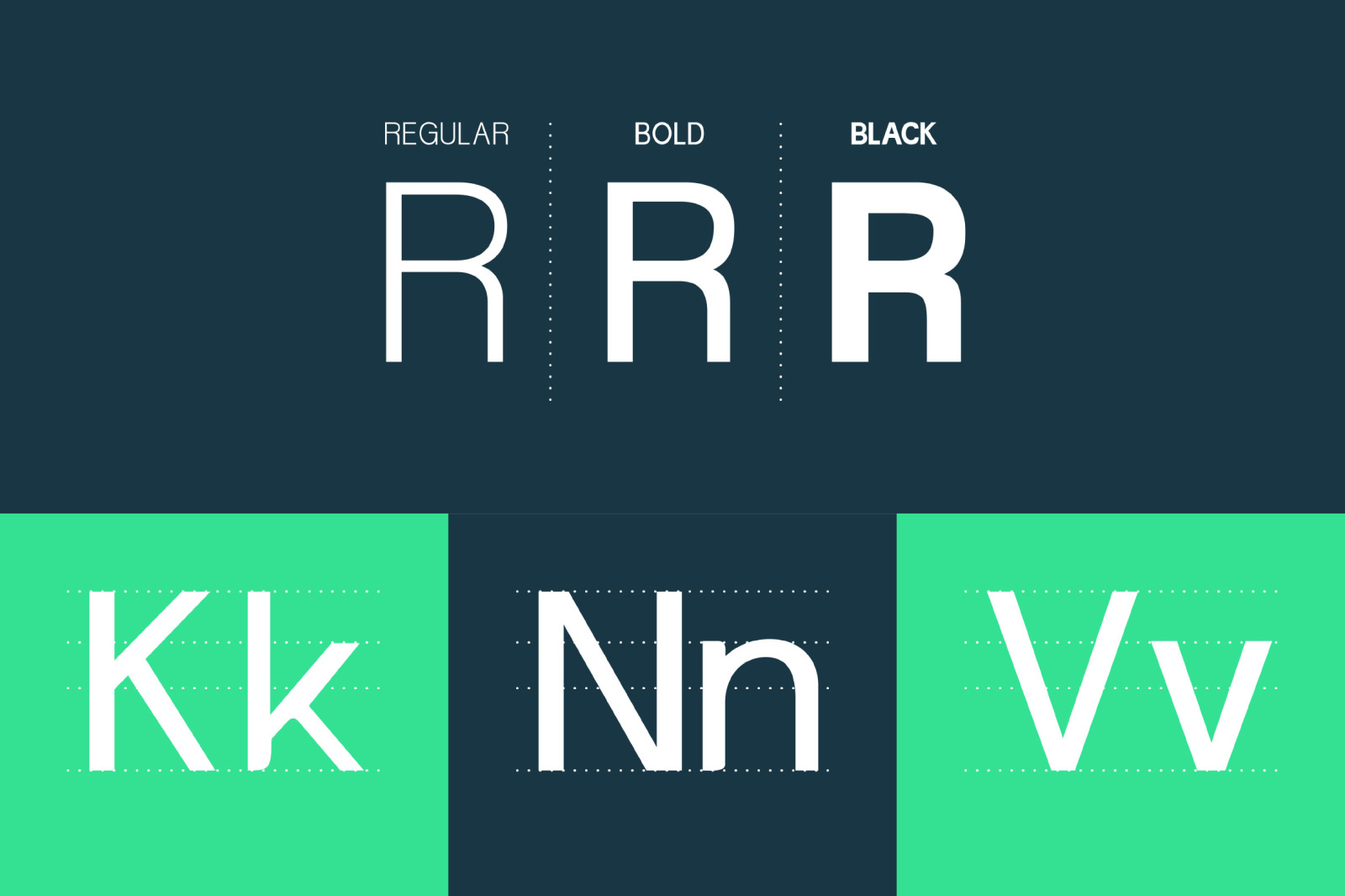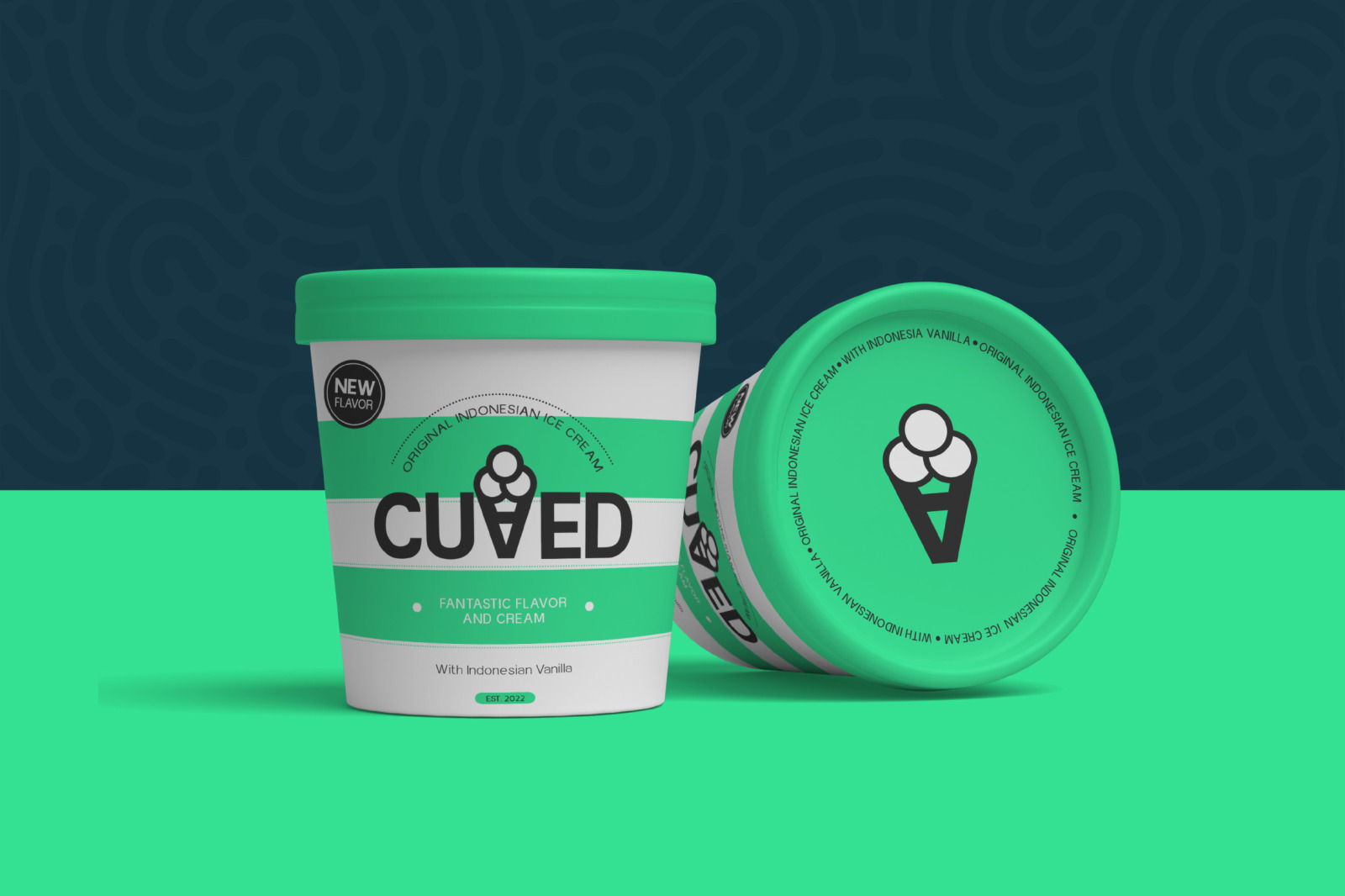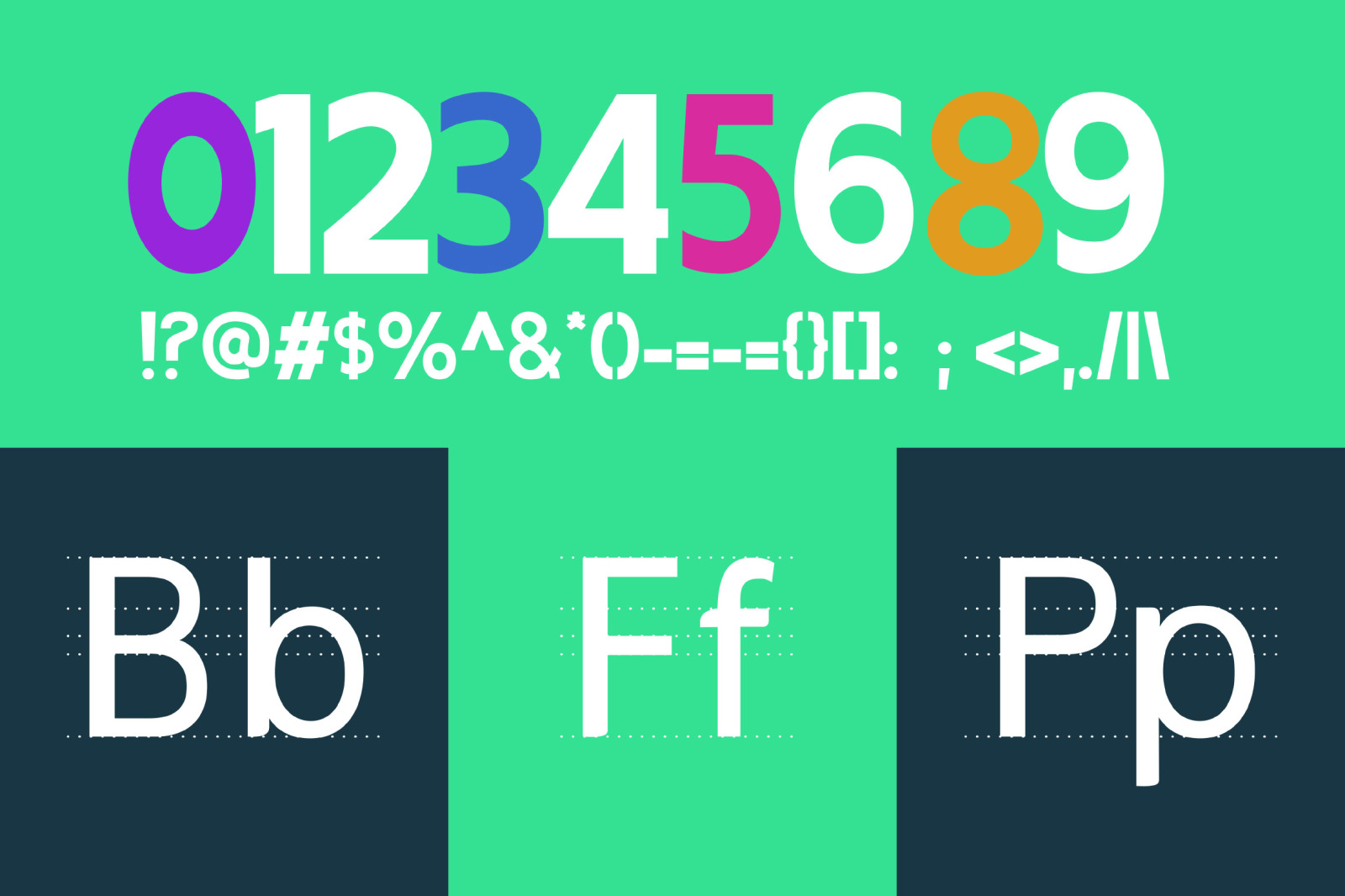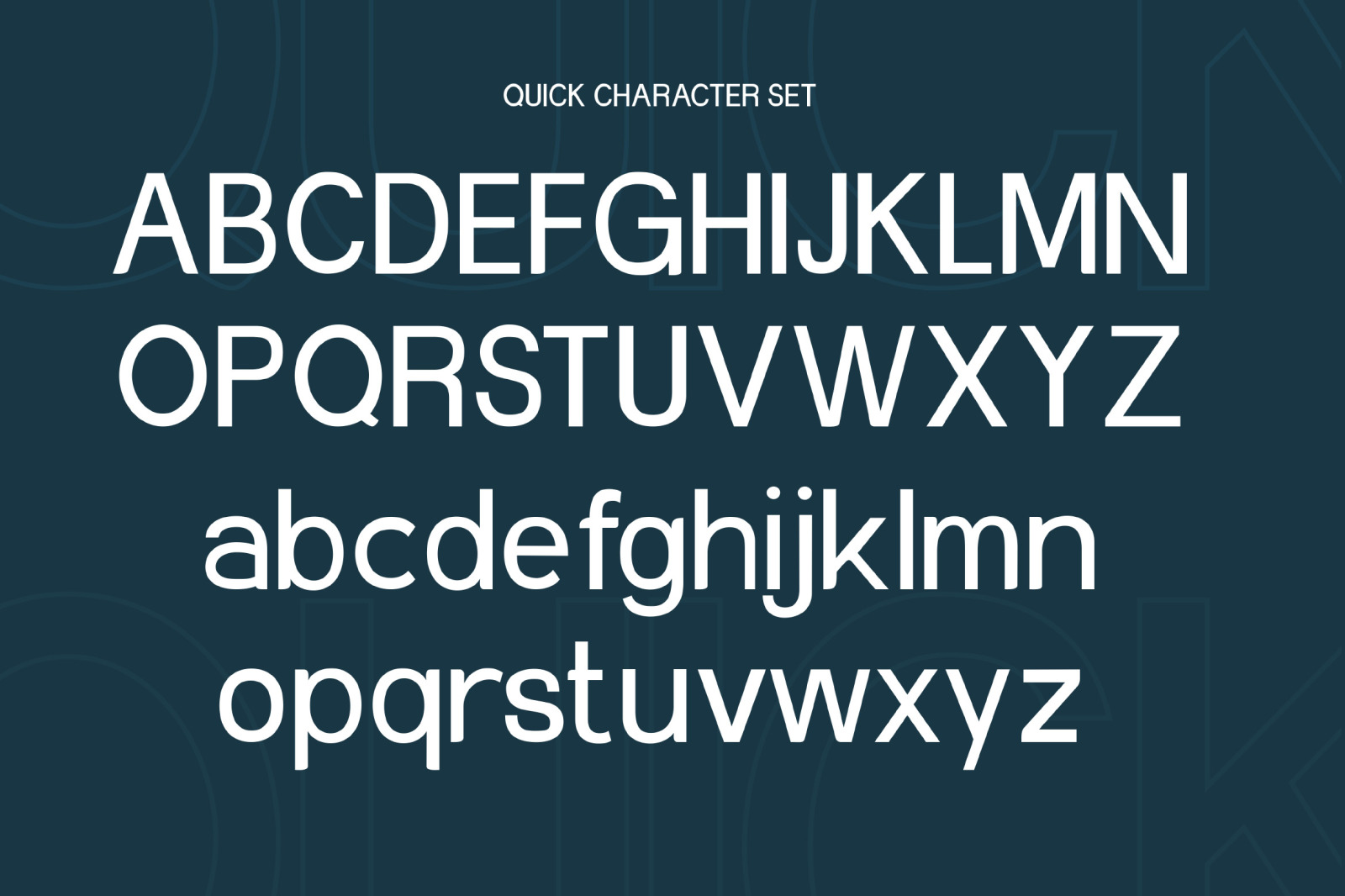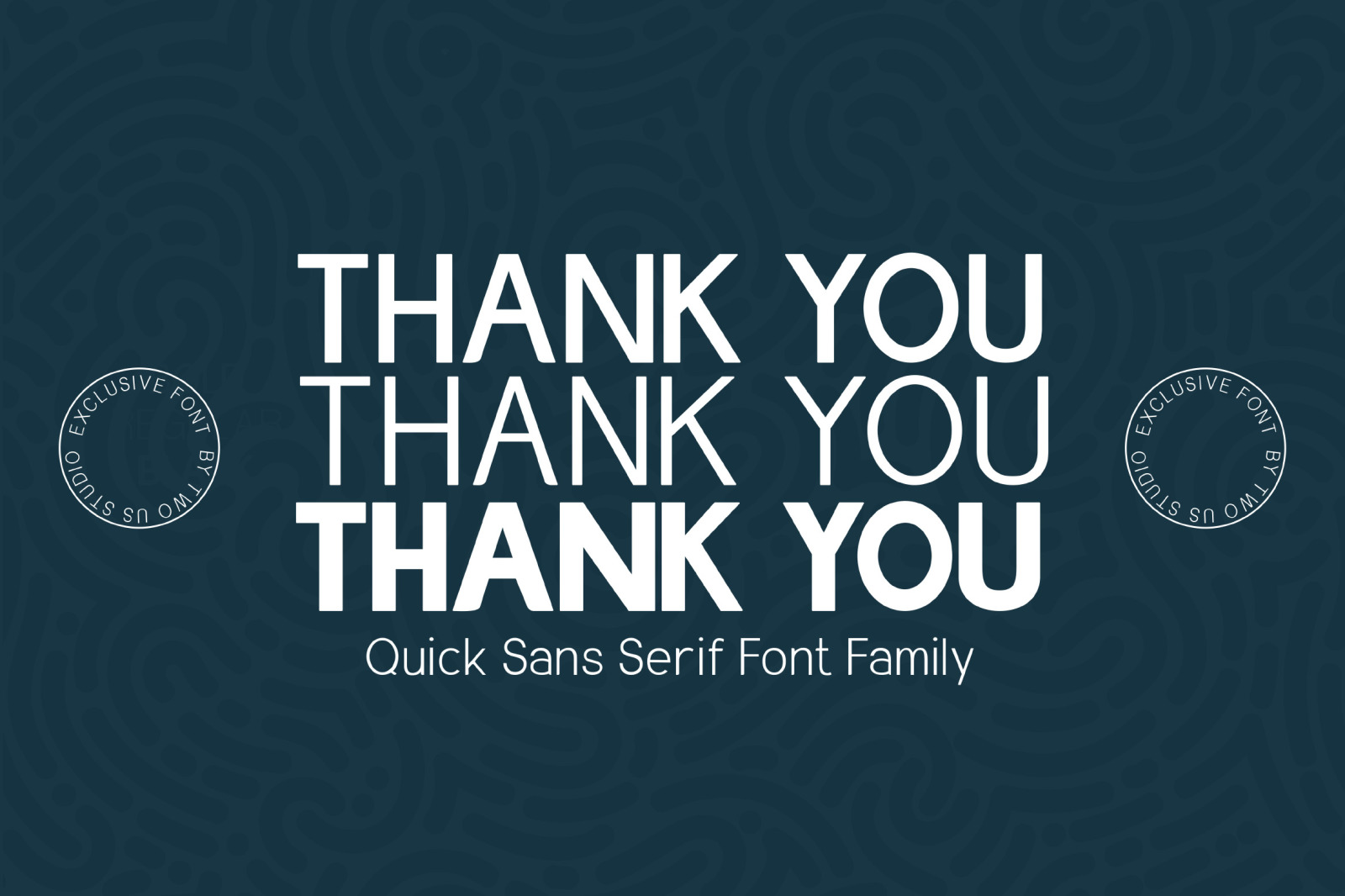
Quick - Simple Sans Serif Family Font
Quick is a simple and modern sans serif font. This minimalist and clean font can easily become your favorite. It can be used for books, magazines, social media posts, invitations, and so much more! So add this to your creations and take your designs to the next level!